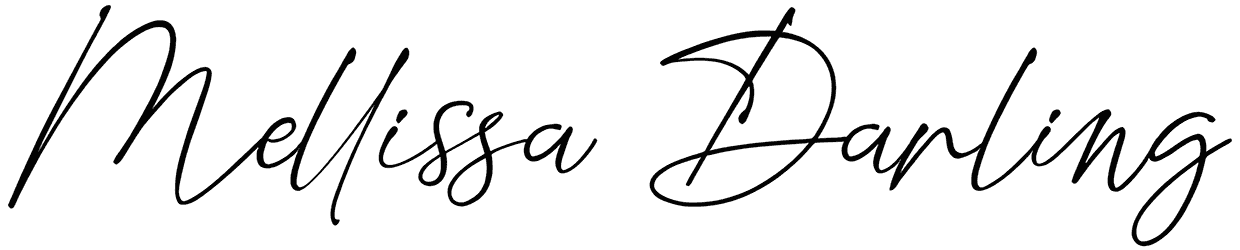
Mellissa Darling Font
Wouldn’t you just love it when your text looks so sexy and stylish? That’s what you get for designing with such a handsome handwritten font. Mellissa Darling is a great choice for anyone who wants their letters to look fancy but also feel warm.
That’s why you’ll probably find yourself using this nice cursive font in your thank you cards, wedding invitations, Valentine’s Day posters, and anywhere you want your words to seem eye-pleasing but also be received as delightful.